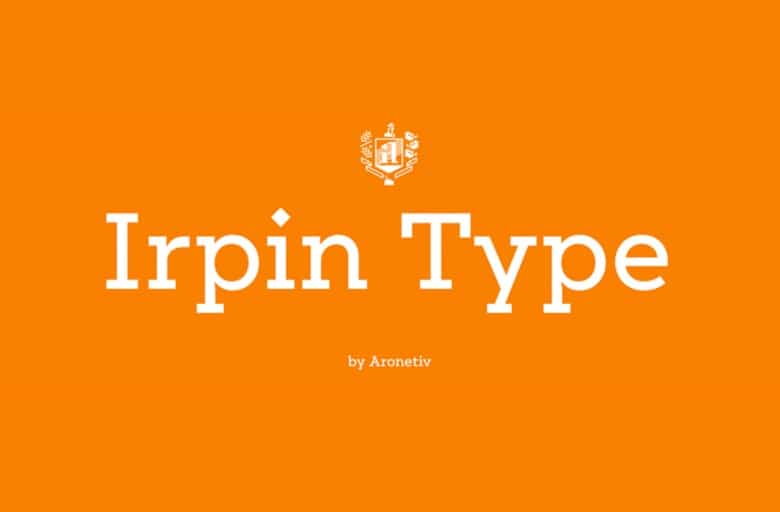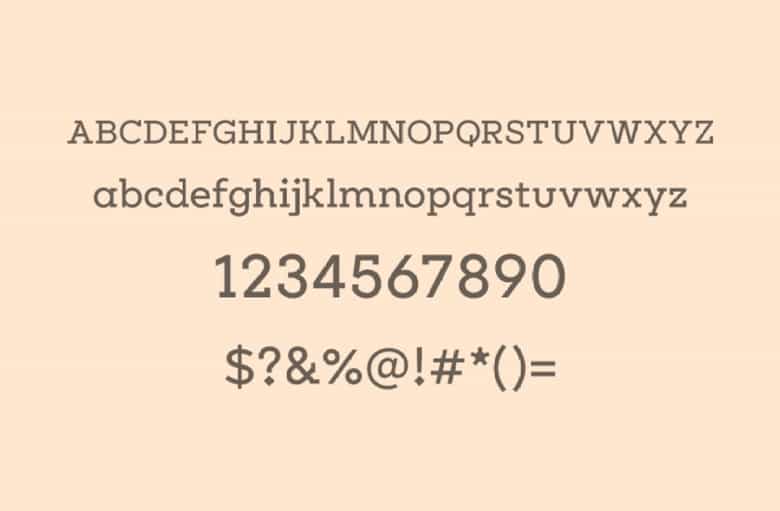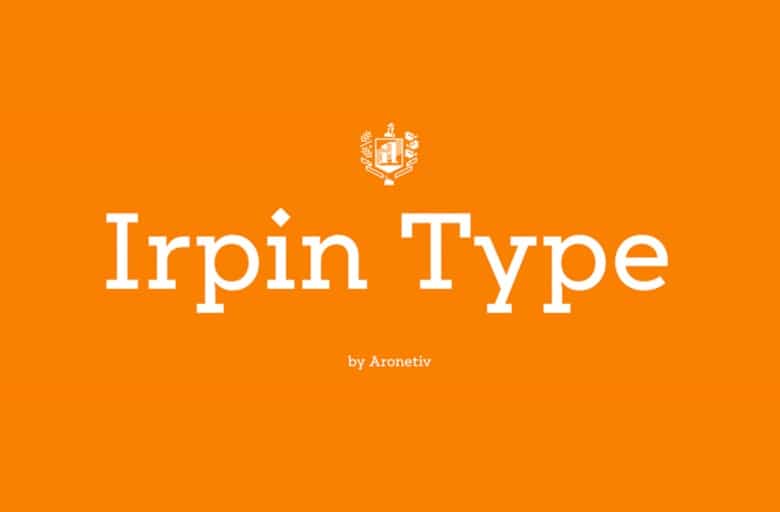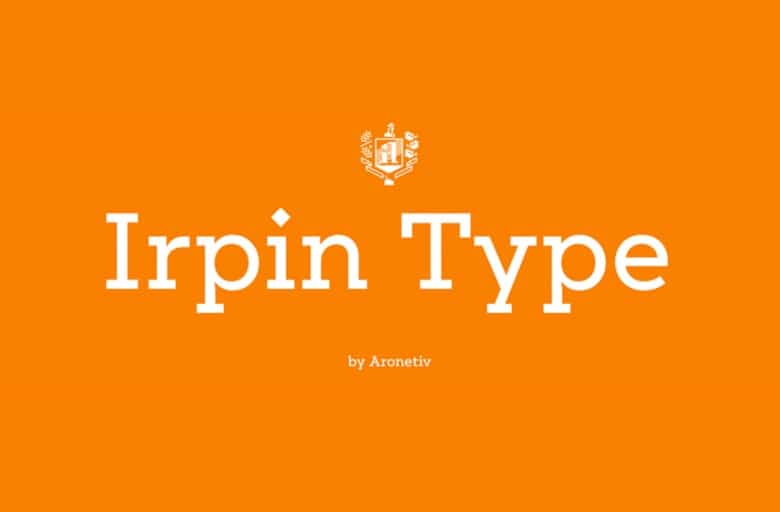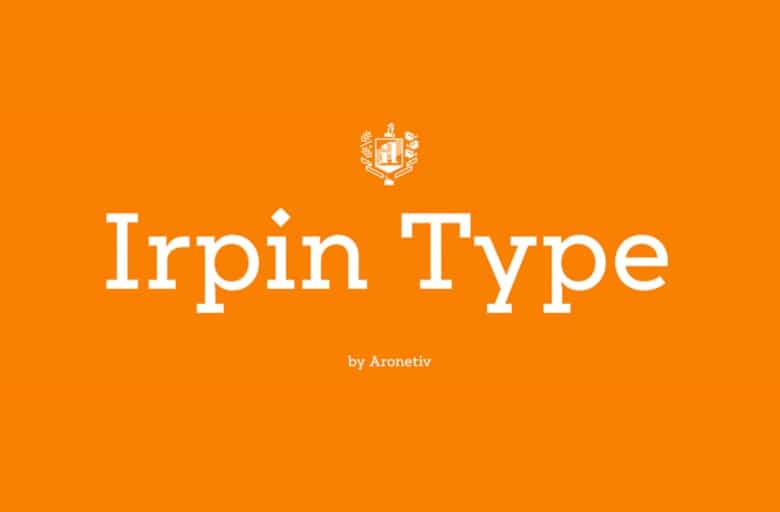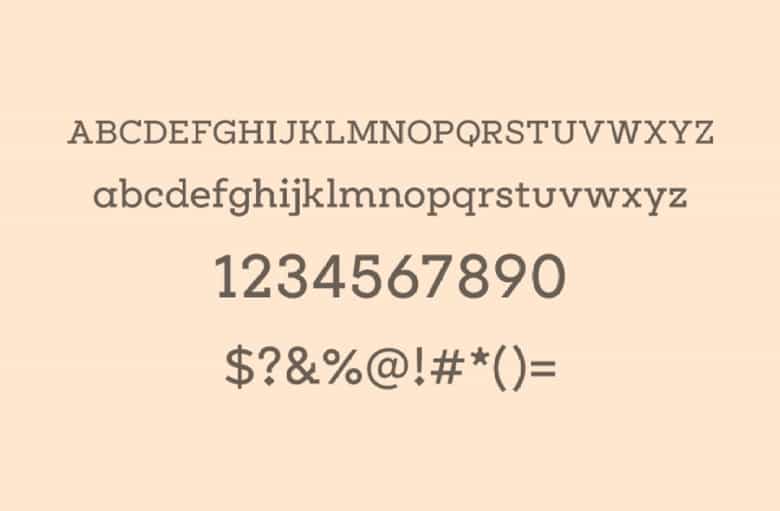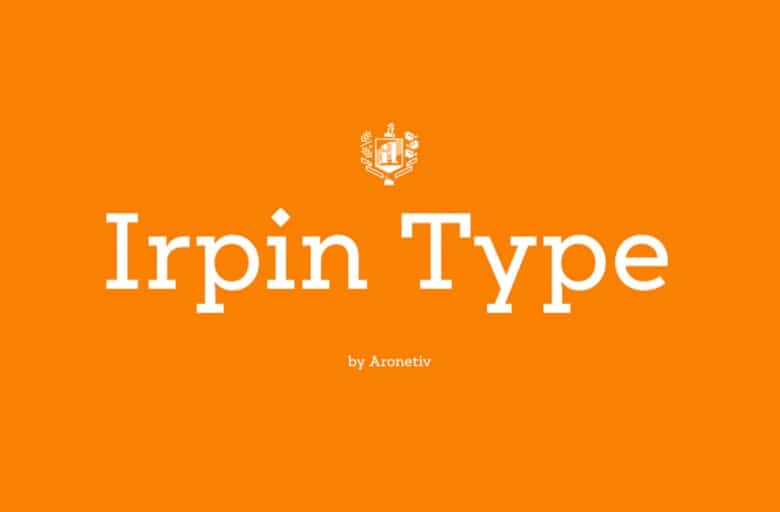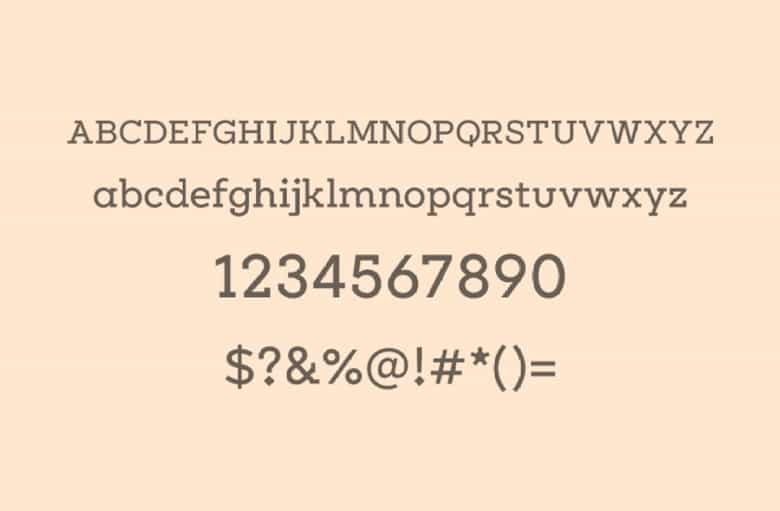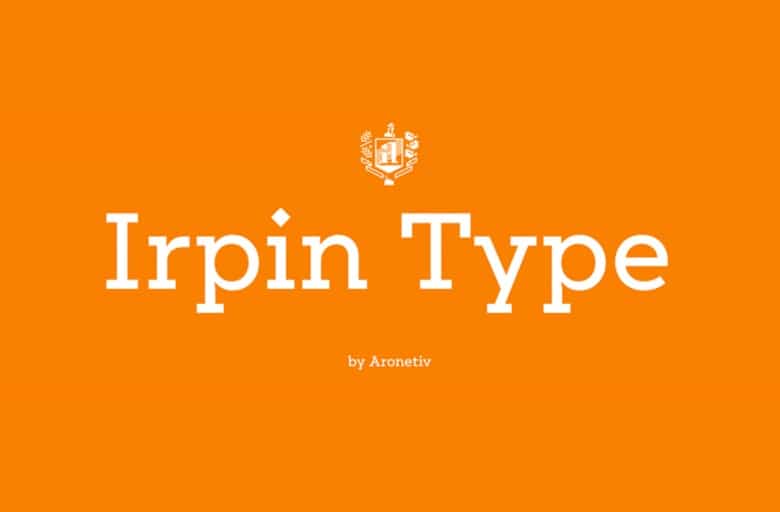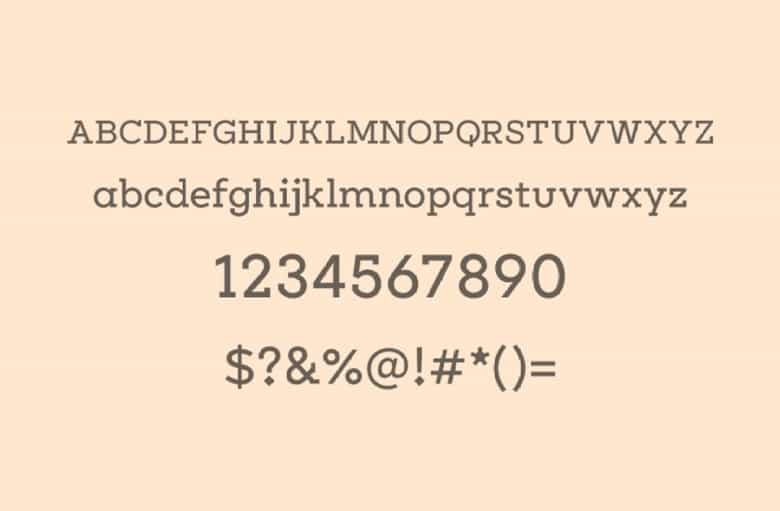
Irpin Type Font Family
Irpin Type is an original slab serif typeface devoted to the city Irpin. Meant to be used at the everyday level, on books, logos, corporate style. It can also be applied in the posters and presentations where you require a confident character. The font is appropriate to a big size, although it is still easy to read in a small size. It is a contemporary geometric slab serif typeface, based on the Ukrainian avant-garde of the 20th century. It uses typical replacements of G, a, u, and &.